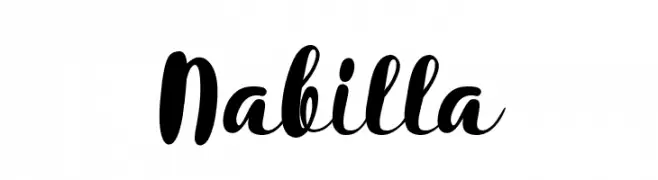
A bold, expressive script font with a playful and dynamic style.
A flowing, cursive script with elegant loops and swashes.
An elegant script font with graceful loops and high contrast strokes.